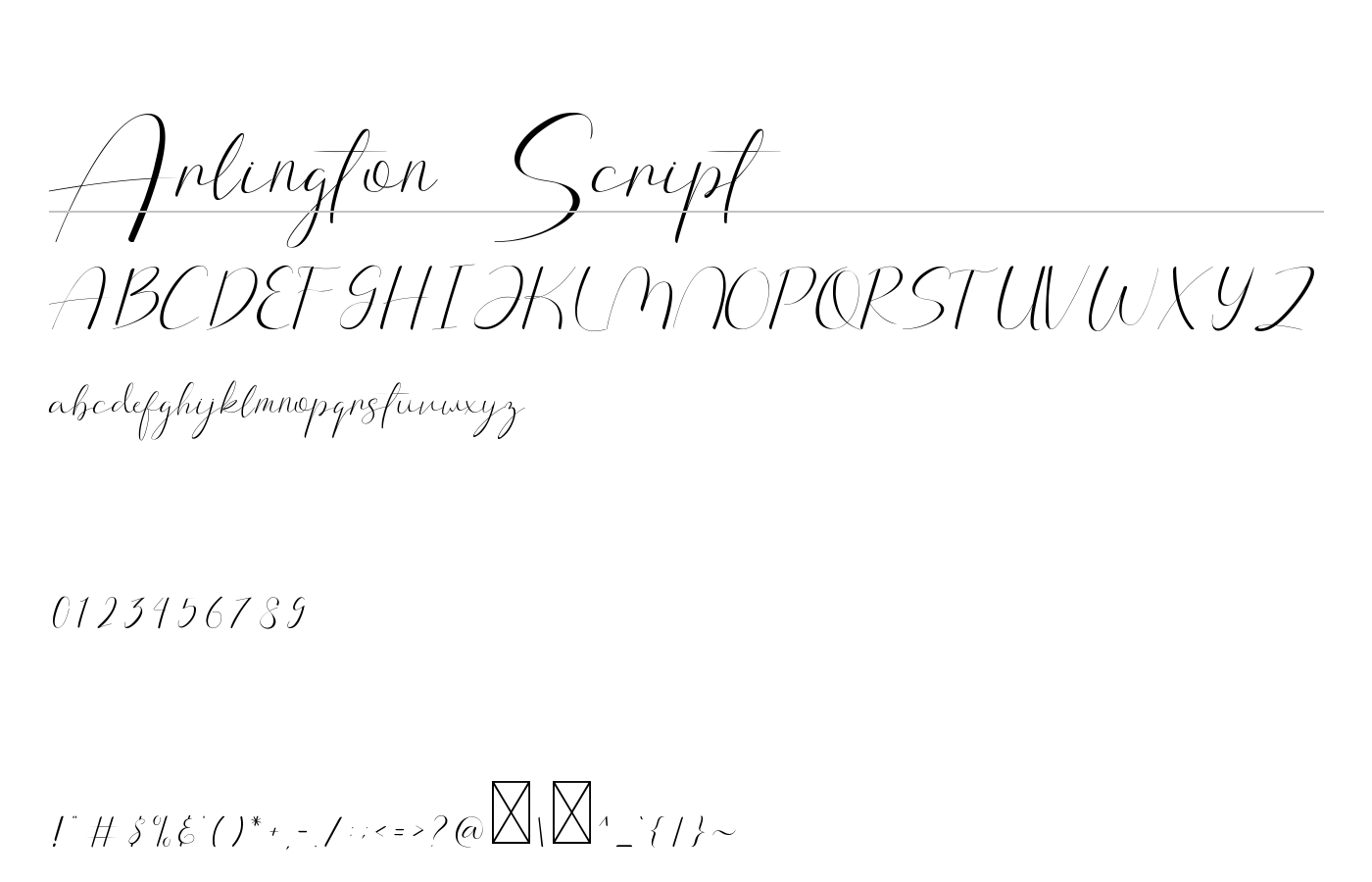
Arlington Script is an elegant, delicate handwritten font with slender, flowing strokes that convey a refined and graceful personality. Its tall, narrow letterforms with subtle contrasts and fine hairlines make it ideal for sophisticated branding, invitations, and upscale editorial projects where a touch of luxury and artistry is desired. This font works best in large sizes for headlines or logos, capturing attention with its stylish, airy charm.
Arlington Font
About Arlington Font
| Font family | Arlington Font |
| Designer | ranggapbp |